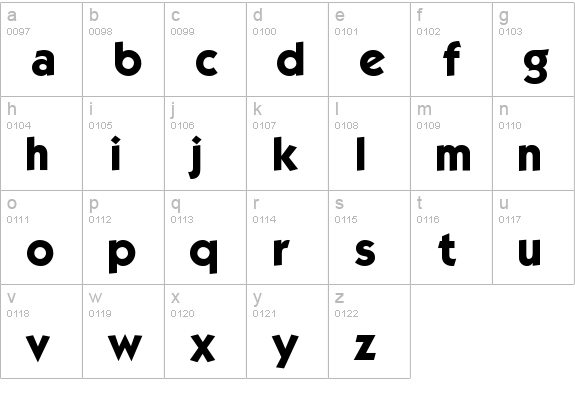
KabanaBold Font Details
KabanaBold is a bold and striking font that demands attention. With its strong and confident letterforms, this font is perfect for headlines, logos, and branding projects that require a bold statement. Its unique and modern design sets it apart from other fonts, making it a versatile choice for any design application. What sets KabanaBold apart is not just its stunning visual appeal, but also the fact that it is freely available to download at FontsMarket.com. This means that designers and creatives can access this font without any cost, making it a valuable resource for those on a tight budget or simply looking for high-quality fonts without breaking the bank. Whether you're designing a poster, a website, or a magazine layout, KabanaBold will elevate your project to new heights. Its clean lines and bold presence make it a standout choice for any design project that needs to make a lasting impression. With KabanaBold, you have the freedom to experiment and explore different creative possibilities. Its versatility allows it to be used in a variety of design styles, from minimalist to bold and expressive. The wide range of characters and glyphs ensure that you have all the tools you need to bring your vision to life. So, why settle for ordinary fonts when you can have KabanaBold for free? Visit FontsMarket.com today and download this exceptional font to enhance your designs and make a bold statement. With KabanaBold, your creativity knows no bounds.